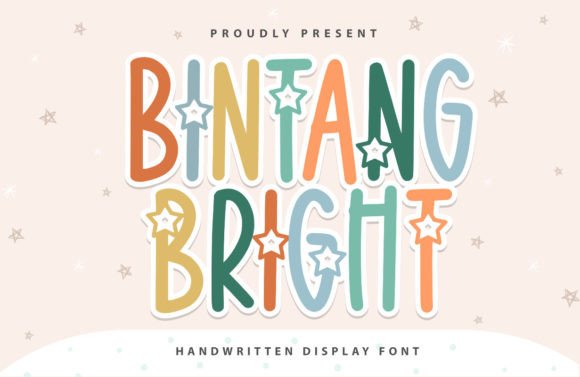
Meet the Bintang Bright Font: A Star-Studded Addition to Your Design Arsenal
Have you ever been in the middle of a design project, and suddenly, you’re stuck on finding the perfect font? I recall a recent experience where I was working on a whimsical craft project for a client, and I just couldn’t find a font that captured the playful, starry essence I was going for. That’s when I stumbled upon the Bintang Bright font, a cute handwritten font display that’s star-themed and perfect for adding a touch of magic to any design.
- ✨ Cute and Playful: The Bintang Bright font has a charming, handwritten feel that’s perfect for designs that require a personal touch.
- ✅ Highly Versatile: Whether you’re working on a craft project, a branding campaign, or a social media graphic, this font can adapt to various design styles.
- ⚠️ Limited Use in Formal Designs: While the Bintang Bright font is amazing for informal designs, it might not be the best fit for more formal projects that require a serif or traditional sans-serif font.
- 🤔 Some Glyph Limitations: While the font has a wide range of glyphs, there might be some limitations when it comes to certain special characters or ligatures.
The Bintang Bright font was inspired by the magic of the night sky and the whimsy of handwritten fonts. The designer aimed to create a font that’s both cute and versatile, perfect for adding a touch of personality to any design. While the real backstory might be fictional, it’s clear that the designer poured their heart into creating a font that’s both functional and beautiful.
| Font Name | Bintang Bright Font |
| Author | Typefar |
| What is the Bintang Bright font best used for? | The Bintang Bright font is best used for informal designs, such as craft projects, social media graphics, and branding campaigns that require a personal touch. |
| Is the Bintang Bright font suitable for formal designs? | No, the Bintang Bright font is not recommended for formal designs. It’s best used for projects that require a playful and whimsical feel. |
| Does the Bintang Bright font support OpenType features? | Yes, the Bintang Bright font supports OpenType features, including ligatures and stylistic alternates. |